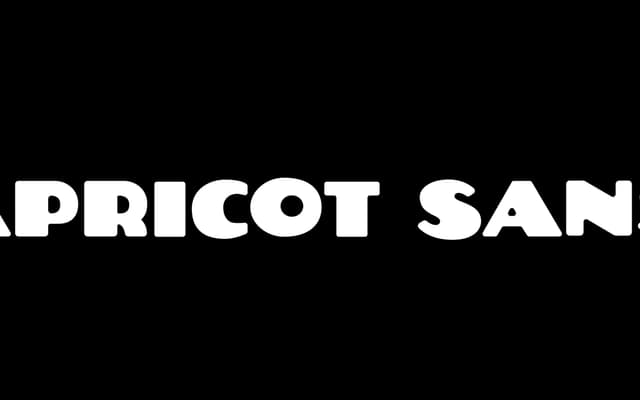
Apricot Sans
An extended, ultra-heavy display sans with a playful, organic character suited to large-scale headline work.
A wide and thick display sans with a warmth that suits food, lifestyle and market-facing brands. The family covers uppercase letters, numerals and punctuation only, keeping its scope tight and its personality legible at a glance. Best deployed at large sizes where its generous proportions and expressive weight read as intended.
A wide, ultra-heavy display face with expressive proportions; its extended width and extreme weight place it firmly in the display category, designed for large-scale use rather than text setting.